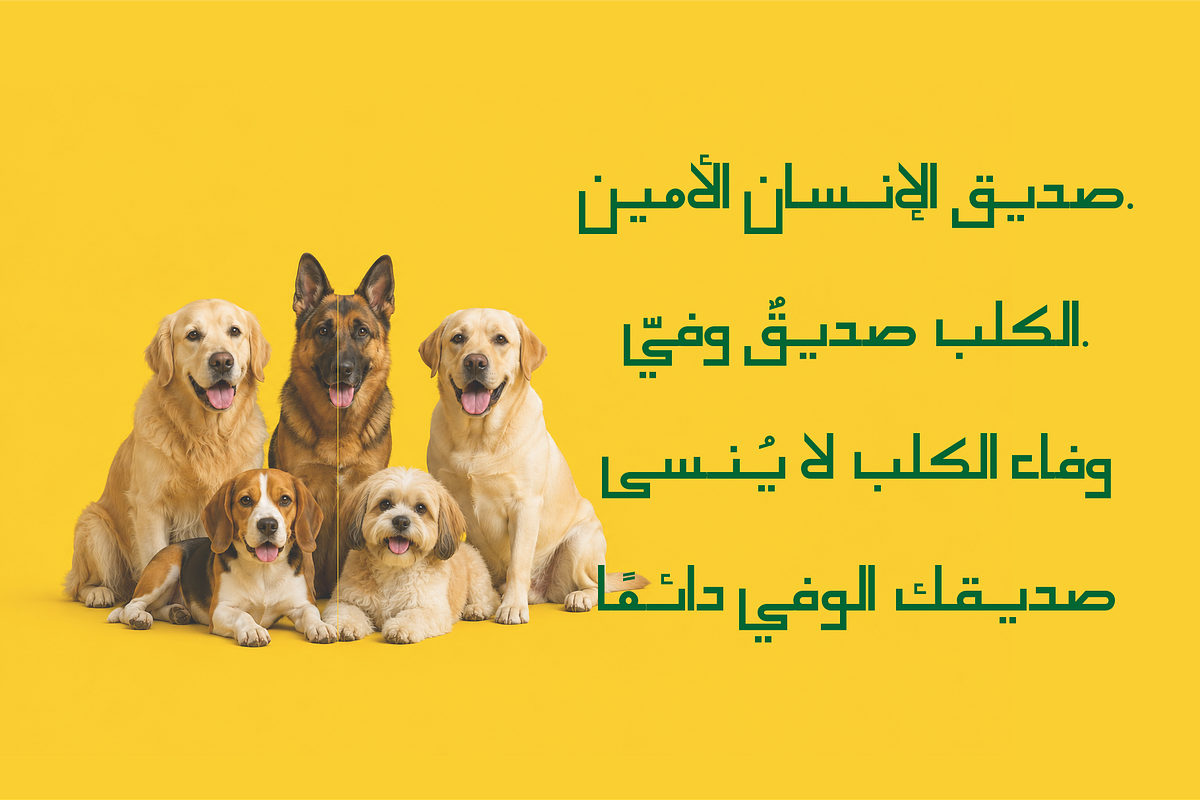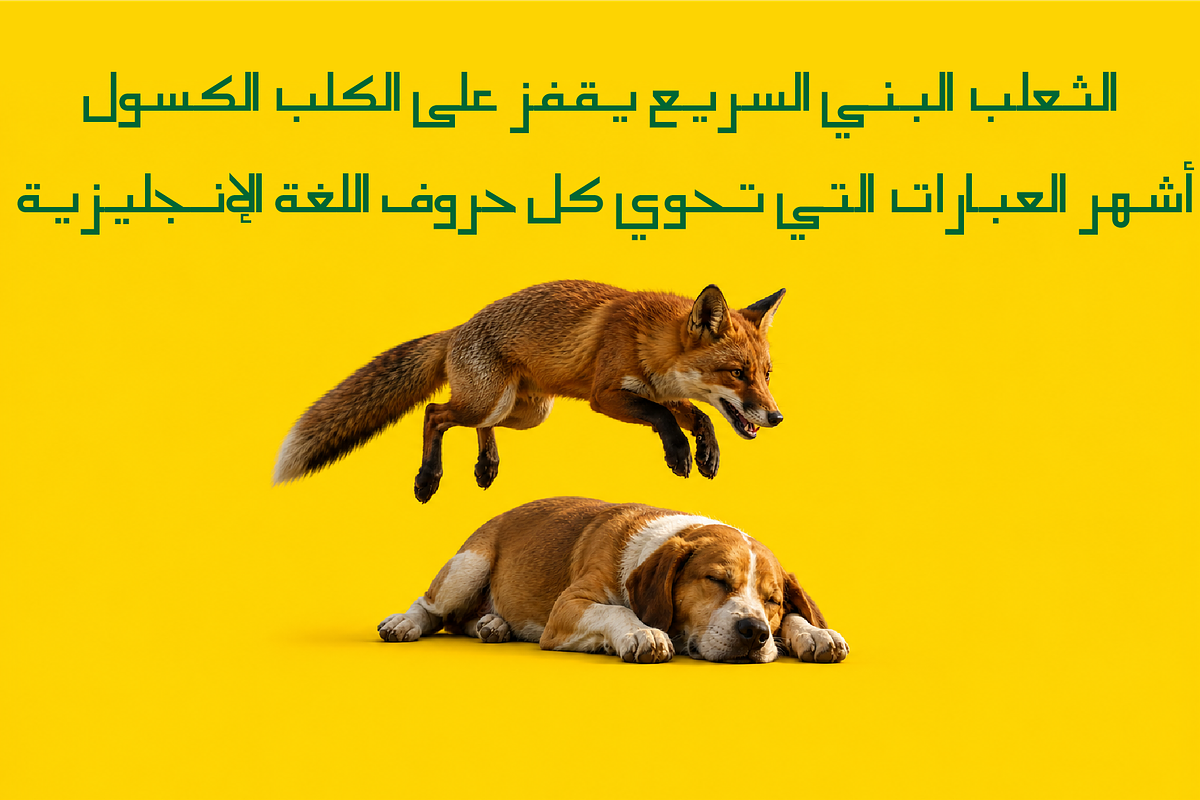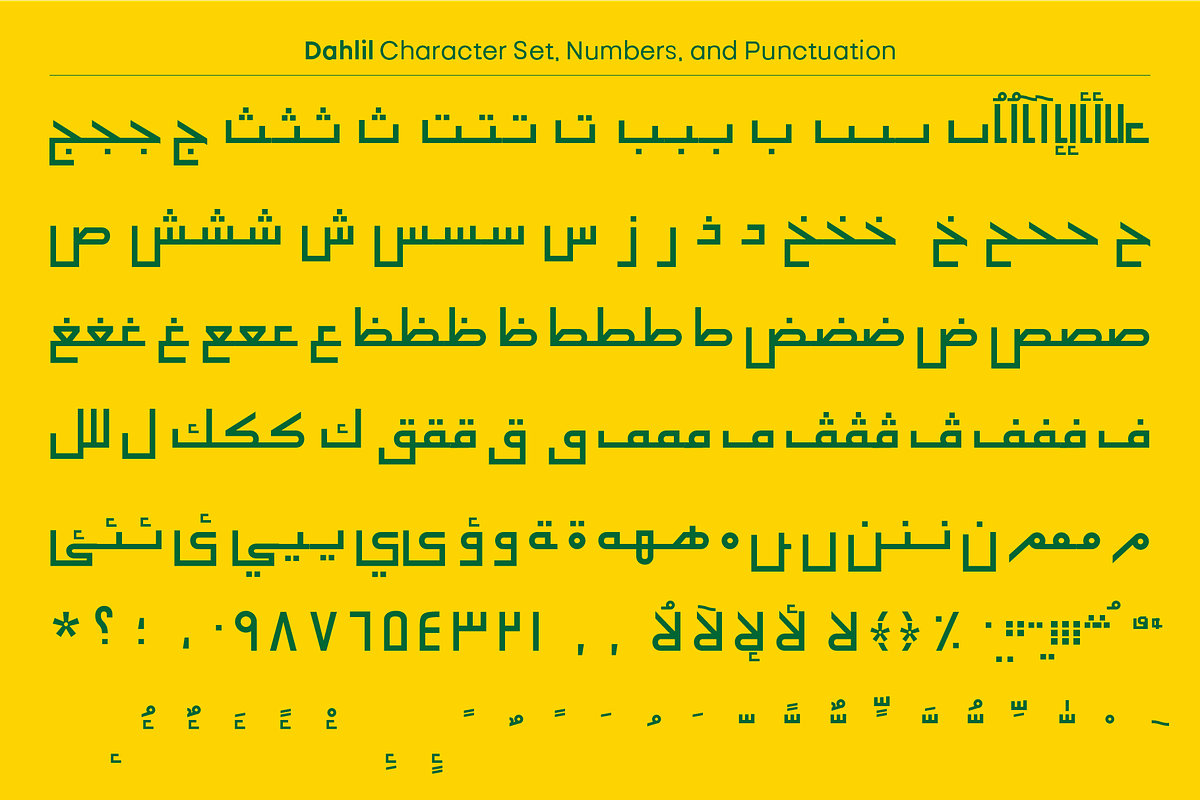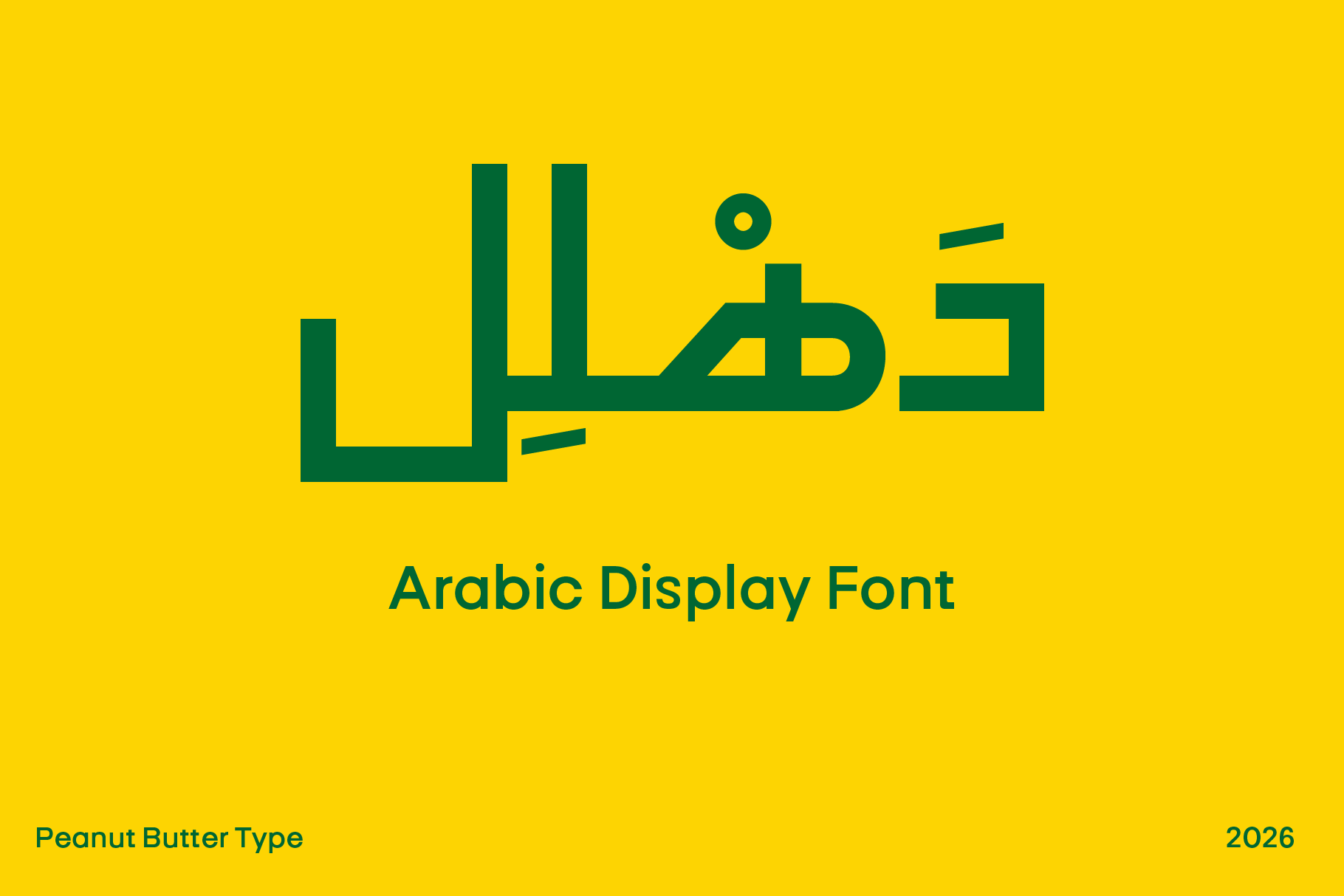
Dahlil Arabic Display Font
Dahli is a distinctive Arabic display font featuring a bold geometric style inspired by a combination of square and circular shapes. Its unique construction creates a modern and eye-catching appearance, making it ideal for headlines, branding, posters, packaging, and creative design projects. The balance between sharp corners and smooth curves gives Dahli a strong visual personality while maintaining the elegance of Arabic letterforms.